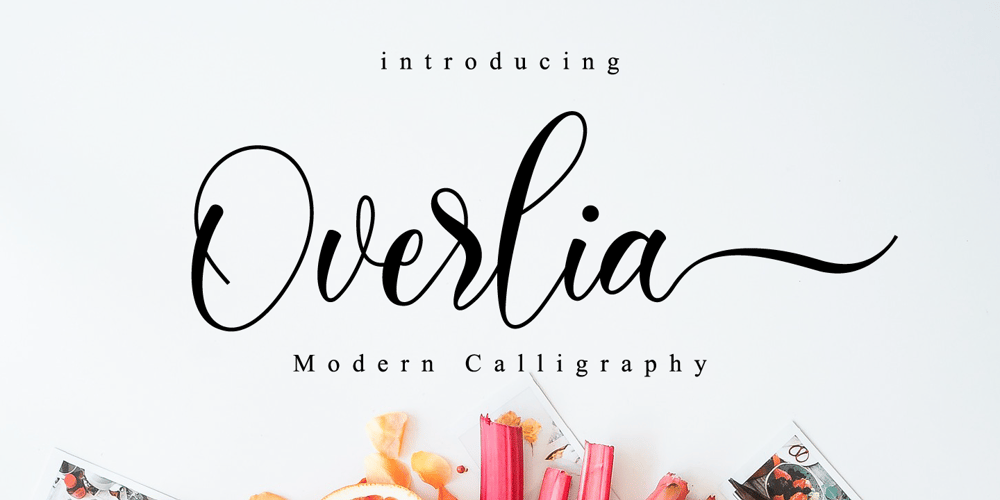
Overlia Font Family was designed by Novia Himatunnisa and published by Nissa Nana. Overlia contains 1 styles and family package options. Overlia is a beautiful script font that is classy, elegant, and modern. It will add a romantic touch to any crafting project!